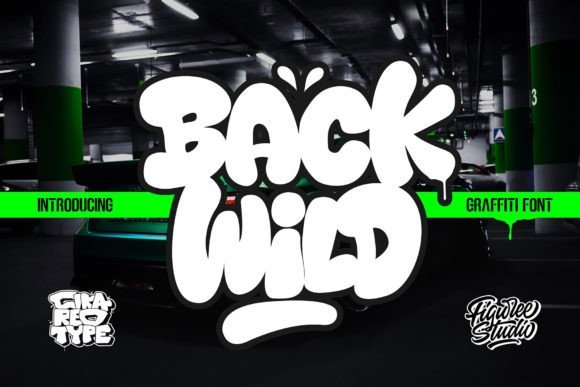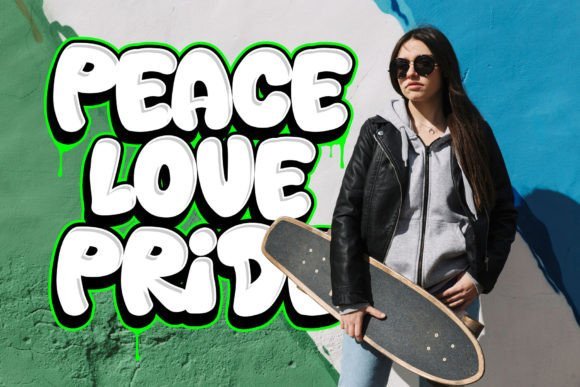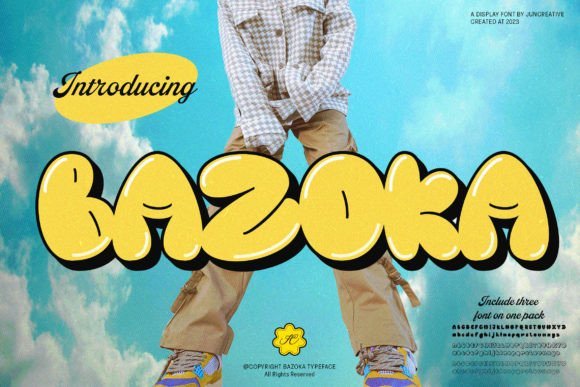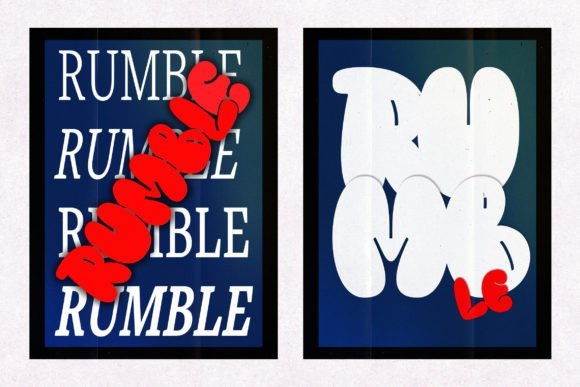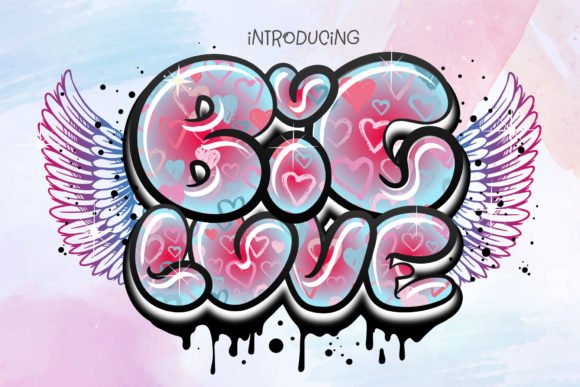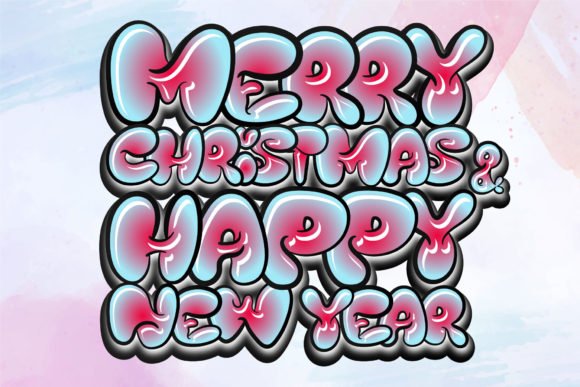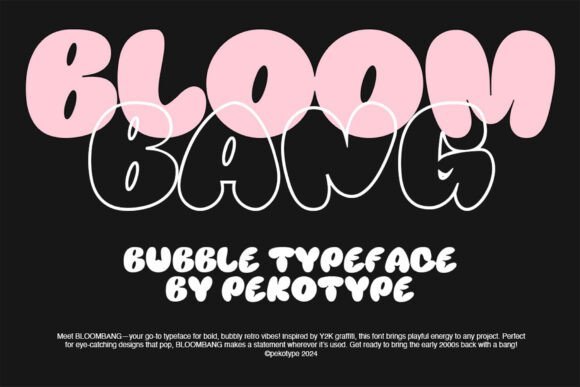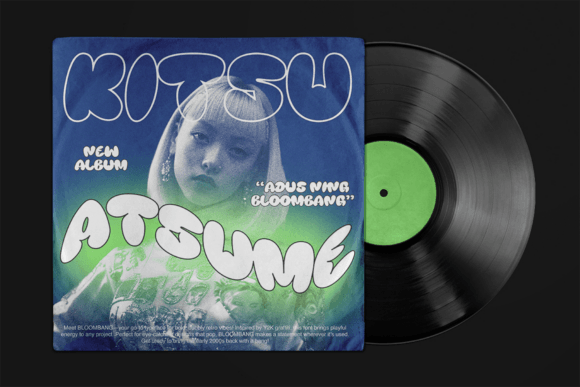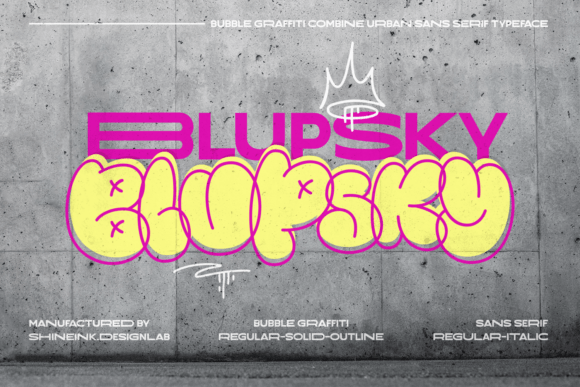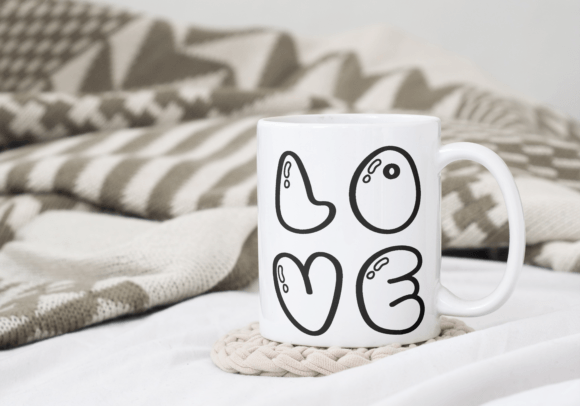
23 Stunning Bubble Graffiti Fonts to Master Urban Branding
Finding the right bubble graffiti font can be a game-changer for your brand. In this guide, we explore 23 professional typefaces that bring an authentic street vibe to everything from logo design to modern apparel. Let’s dive into the collection!
Voluminous Typefaces Rooted in Authentic Street Culture
Bubble graffiti typography turns raw street energy into memorable visual identities. This collection highlights 23 high-volume typefaces featuring exaggerated curves, overlapping silhouettes, and dynamic weight distribution. Graphic designers, streetwear labels, and creative directors gain a powerful toolkit of urban lettering styles built for eye-catching logos, festival posters, and high-impact commercial packaging.
1. Big Love: A Fresh Take on Classic Throw-Up Typography
Whenever I need a project to literally “pop” off the screen, Big Love is the first thing I grab. It’s a bubble graffiti font that uses a clean, bold outline to create that classic street-bombing look without feeling messy. I personally love how the hollow centers give you so much room to play with vibrant gradients or funky patterns, making it feel like a piece of fresh wall art that hasn’t even dried yet.
I’ve found that this bubble graffiti font is a total game-changer for streetwear branding, upbeat event posters, and digital stickers. One of its best perks is its readability; because it’s an outline style, it stays clear even on busy social media thumbnails and urban-themed merchandise. If you want to capture that high-energy, “throw-up” style while keeping your message sharp, Big Love is a fantastic choice to experiment with.
2. Your Name: Crafting Vibrant Visuals with Modern Bubble Styles
I’ve always felt that some fonts just have a personality that’s impossible to ignore, and Your Name is exactly that. It’s a bubble graffiti font that leans into those soft, exaggerated curves and unique proportions that make a word feel alive. When I use it, I love how the letters seem to bounce off each other, creating a rhythmic, “puffy” aesthetic that captures the fun, rebellious side of street culture without trying too hard.
This bubble graffiti font is my favorite pick for bold streetwear labels, playful YouTube thumbnails, and urban-style stickers. Its biggest advantage is that “cool, bubbly” shape which breathes life into creative social media headers and youth-oriented brand identity items. If you’re looking to give your digital canvas an instant dose of energy and a friendly, “throw-up” vibe, Your Name is a stellar choice that turns any simple text into a statement piece.
3. King Graffiti Font: Dominating the Scene with Heavyweight Curves
When I want a design to scream “street cred” without saying a word, I reach for King Graffiti. It’s a bubble graffiti font that perfectly captures that raw, edgy energy of a fresh tag on a city wall. I’m a huge fan of how it balances those chunky, rounded volumes with sharp, aggressive outlines—it gives the letters a heavy, muscular feel that looks like it was executed with a fat-cap spray nozzle in record time.
I’ve found that this bubble graffiti font is an absolute beast for bold event posters, underground music covers, and statement streetwear. The real advantage is its “king-sized” presence; it’s designed for attention-grabbing headlines and large-scale street art murals where you need your message to be loud and unmistakable. If you’re looking to bring some serious urban flair and a rebellious “throne” vibe to your artwork, this typeface is your best ally.
4. Back Wild: Blending Puffy Aesthetics with High-End Style
There is something incredibly compelling about fonts that look like they were painted with a thick, pressurized can, and Back Wild hits that mark perfectly. It’s a bubble graffiti font that embraces its “chubby” nature, offering wide, rounded letterforms that feel incredibly satisfying to look at. What really sets it apart for me is the addition of swash characters; they add a layer of decorative flair that transforms a simple word into a curated piece of street calligraphy.
I love using this bubble graffiti font for playful streetwear logos, bold headline art, and high-energy music festival posters. The major advantage here is the decorative swashes, which allow you to customize urban brand identities and stylish apparel designs with ease. If you’re looking for a typeface that combines a friendly, puffy aesthetic with a serious “wild style” attitude, Back Wild is the versatile tool you need in your kit.
5. Kiss Cloud Font: Soft Shapes for High Impact Graphics
I’ve always found that the best street art feels effortless, and Kiss Cloud captures that “floating” energy perfectly. It’s a bubble graffiti font that lives up to its name, offering soft, pillowy shapes that look like they were puffed onto a canvas. What really sold me on this one is how naturally it sits alongside other urban graphics; it has a friendly, approachable vibe that still maintains its cool, underground roots without feeling stiff.
This bubble graffiti font is my top pick for custom streetwear shirts, playful skate brand logos, and urban lifestyle stickers. One of its greatest advantages is the variety—it comes with regular, outline, and shadow versions, making it incredibly easy to layer for a 3D effect. Whether you’re designing vibrant social media assets or trendy apparel, Kiss Cloud gives you the flexibility to mix and match styles for a professional, harmonious street aesthetic.
6. Graffiti Bubble: Playful Curves for Modern Street Designs
When I first saw Graffiti Bubble, I was struck by how it balances that classic street “bombing” look with a surprisingly polished, modern cut. It’s a bubble graffiti font that swaps out gritty aggression for pure, rounded charm, making every character feel like a freshly inflated balloon. I love using it when I want a design to feel approachable and fun rather than intimidating, as it turns simple words into soft, distinctive art pieces.
I’ve found this bubble graffiti font works wonders for sublimation designs on t-shirts, custom mugs, and tote bags. One of its standout perks is its clarity, which makes it an excellent choice for comic book titles and playful animations where you need personality without sacrificing legibility. If you’re looking to splash some creativity onto youth-oriented branding or quirky merchandise, this typeface is a “delightful fusion” that’s incredibly easy to work with.
7. Boy Graffiti Font: Bold Urban Style for Edgy Designs
When I’m looking to channel that authentic, back-alley street vibe, Boy Graffiti is my immediate go-to. It’s a bubble graffiti font that captures the high-energy spirit of a quick throw-up, featuring bold lettering that looks like it was executed with a heavy hand and plenty of attitude. I love how it doesn’t shy away from being loud; it brings a specific kind of gritty confidence to the table that makes any digital canvas feel like a real-world city surface.
I’ve found this bubble graffiti font is a powerhouse for street art projects, edgy graphic designs, and urban-style posters. Its main advantage is its ability to make a bold statement instantly, making it perfect for skate brand logos and underground event flyers. If you want to give your next creative project a genuine “graffiti-inspired look” that feels both cool and rebellious, Boy Graffiti is the perfect tool to add that necessary layer of urban edginess.
8. Graffiti Street: Dynamic Balloon Styles for Creative Projects
I’ve always loved how street art can turn a plain brick wall into a masterpiece, and Graffiti Street brings that exact energy to your screen. As a bubble graffiti font, it stands out with its unique “balloon” texture that feels incredibly tactile and alive. When I use it, I’m always impressed by how the letters seem to vibrate with movement, offering an expressive, edgy allure that makes any word feel like a fresh piece of urban self-expression.
I find this bubble graffiti font is a fantastic choice for vibrant posters, urban-themed DIY crafts, and modern streetwear branding. Its biggest advantage is the “authentically street-inspired” feel it adds to creative social media assets and digital art, turning ordinary layouts into visually engaging celebrations of urban culture. If you’re looking to inject a dynamic, textured flair into your next big project, this typeface is a uniquely crafted winner.
9. Graffiti Bubble Font: Bold Rounded Styles for Urban Merch
bubble graffiti font
I’ve found that most street-style projects need a balance between raw energy and clean execution, and Graffiti Bubble hits that sweet spot perfectly. It’s a bubble graffiti font that feels like a classic “throw-up” but with a polished, professional edge. When I’m building a layout, I love how the chunky, inflated letters create a natural sense of depth, making your text look like it was freshly bombed onto a surface with a steady, expert hand.
This bubble graffiti font is an absolute powerhouse for athletic apparel, skateboard deck graphics, and bold logo design. Its major advantage is its sheer versatility; it transitions seamlessly from sportswear jerseys to high-impact advertising, ensuring your message stays legible while maintaining that underground vibe. If you’re ready to take your urban concepts to the next level, this stunning typeface is the bold boost your creative toolkit needs.
10. Graphy: Bold Bubble Letters With Contemporary Edge
I’m obsessed with how Graphy manages to bridge the gap between old-school street grit and that polished Y2K aesthetic we’re seeing everywhere right now. It’s a bubble graffiti font that feels like a time capsule from the early 2000s, but with a modern, clean layout that makes it super easy to place in a professional design. I love the “Filled” version for its chunky weight, but the “Anti Counter” style gives it a unique, solid look that really breaks the mold of traditional lettering.
This bubble graffiti font is a fantastic choice for trendsetting logos, social media graphics, and streetwear branding. Its biggest advantage is the variety; having Filled, Anti Counter, and Outline styles in one kit means you can layer them to create custom 3D effects on music covers or modern apparel. If you want to give your project a contemporary edge that feels both nostalgic and fresh, Graphy is the tool that will make your work pop.
11. Milyear Solid: The Perfect Balloon-Graffiti Hybrid
There is something truly refreshing about scripts that don’t take themselves too seriously, and Milyear Solid hits that playful sweet spot perfectly. It’s a bubble graffiti font that masterfully blends the raw energy of street bombing with the soft, bouncy volumes of balloon art. What really caught my eye is the built-in ligatures; they make the letters flow together so naturally, giving your text that “custom-painted” look without the extra manual tweaking.
I’ve found this bubble graffiti font is an absolute gem for youthful product packaging, vibrant website headers, and artistic social media content. One of its best perks is the dual-style nature—you can switch between the solid version for bold impact or the outline style for a modern touch on posters and murals. If you’re looking to add a layer of urban flair to street-style banners or creative logos, Milyear Solid offers a seamless and visually satisfying experience every time.
12. Thick or Melted Font: The Fluid Energy of Street Art
I’m really digging how “Thick or Melted” lives up to its name—it has this incredible, heavy flow that makes the letters look like they’re dripping right off the canvas. As a bubble graffiti font, it leans into that juicy, over-inflated aesthetic that defines the best street “throw-ups.” When I use it, I love how the rounded edges feel both soft and powerful, giving any word an instant sense of weight and urban character.
This versatile bubble graffiti font is my go-to for bold sportswear jerseys, streetwear apparel, and high-impact logo designs. Its biggest advantage is how well it works in aggressive advertisements and clothing line branding, where you need a style that’s both legible and unapologetically cool. If you want a typeface that adds a “melted” yet structured vibe to your creative street-style projects, this font is a total standout choice.
13. Blupsky: Where Street Art Meets Clean Design
The best urban fonts are undeniably the ones that don’t sacrifice readability for style, and Blupsky strikes that balance beautifully. It’s a bubble graffiti font that feels like it was born on a skate deck, blending the bouncy energy of street art with the structure of a classic sans-serif. When I use it, I’m always impressed by how “effortlessly cool” it looks; it has that puffy, rounded charm but stays sharp enough to work in professional layouts.
This bubble graffiti font family is an absolute winner for skateboarding brand identities, modern sportswear, and eye-catching event posters. Its main advantage is its high legibility, which makes it perfect for dynamic social media content and urban-style apparel where you want that graffiti soul without the typical clutter. If you’re looking for a versatile typeface that feels both playful and polished, Blupsky is a fantastic way to elevate your next creative project.
14. Bazoka: The Energetic Punch of Hand-Drawn Ink
I’ve found that some fonts just scream “personality” the moment you type the first letter, and Bazoka is definitely one of them. It’s a bubble graffiti font that perfectly mimics that raw, hand-drawn look we all love in authentic street art. I’m a huge fan of its chunky, rounded shapes; they give off a playful yet bold vibe that feels like it was sketched in a notebook before hitting a city wall.
This bubble graffiti font is my go-to for informal event flyers, urban-themed posters, and high-energy social media banners. The biggest advantage of Bazoka is its ability to add an instant human touch to street art projects and digital illustrations, making everything feel more organic and less “stock.” If you need to inject some fun, bouncy energy into your creative branding or merch designs, this typeface is a solid choice to get noticed.
15. Bulbis Font: A Y2K Twist on Street Classics
I’m really feeling how Bulbis manages to tap into that nostalgic Y2K energy while staying firmly rooted in the streets. It’s a bubble graffiti font that feels like a fresh take on the classic “puffy” look, blending sleek, modern layouts with the bouncy spirit of a high-pressure spray can. When I work with it, I love how its eye-catching proportions instantly draw the eye, making any layout feel like a curated piece of trending street culture.
This bubble graffiti font is a fantastic choice for vibrant streetwear branding, modern logo design, and high-energy social media graphics. Its major advantage is its “trendsetting” versatility; it bridges the gap between retro Y2K identities and contemporary urban apparel, giving your work a fresh, edgy finish. If you’re looking to stand out in a crowded feed, Bulbis offers that perfect mix of dynamic movement and clean, professional design.
16. Graff Pumphiz: Give Your Brand Real Underground Attitude
When I want my work to carry a heavy, unmistakable attitude, Graff Pumphiz is exactly what I reach for. It’s a bubble graffiti font that doesn’t just sit on the page—it commands it with thick, pressurized lines and distinctive rounded edges. I’m a big fan of how it manages to look both massive and fluid at the same time, capturing that raw “throw-up” style you’d see on a fresh city mural before the sun even comes up.
I’ve found that this bubble graffiti font is the ultimate choice for music event posters, edgy streetwear collections, and high-impact urban branding. Its biggest advantage is the “rebellious edge” it brings to skate shop logos and digital graffiti art, making it easy to add a sense of street-smart confidence to any layout. If you’re aiming to make a loud statement with your graphic design projects, Graff Pumphiz delivers that authentic underground energy effortlessly.
17. Bloombang Font: The Retro-Futurist Street Pop
I honestly get such a nostalgia kick whenever I open Bloombang. It’s a bubble graffiti font that perfectly captures that “too cool to care” Y2K energy, mixing oversized, puffy curves with a bit of a futuristic glow. What I love most is how it feels like a vibrant blast from the past; the letters don’t just sit there—they practically burst off the screen with a playful, high-octane personality that makes any word feel like a centerpiece.
I’ve found this bubble graffiti font is a total winner for eye-popping posters, edgy streetwear, and dynamic brand logos. Its main advantage is that it bridges the gap between nostalgic early-2000s aesthetics and modern street art, making it incredibly easy to create standout social media headers and youth-focused merchandise. If you want your designs to explode with color and a fresh, “retro-futurist” twist, Bloombang is the go-to choice for making a loud, memorable statement.
18. Nasty Habit: The Flavor of Street Versatility
I’m honestly obsessed with how Nasty Habit can flip the script from “sweet” to “gritty” in a heartbeat. It’s a bubble graffiti font that feels like a cross between a classic street throw-up and a burst of juicy bubblegum. What makes it a personal favorite is the massive variety; with 8 styles ranging from clean, bouncy curves to “melted” versions that look like dripping ink, it gives me total creative freedom to decide exactly how “nice” or “naughty” I want the design to be.
I’ve found this bubble graffiti font is a powerhouse for comic book titles, playful food packaging, and even horror-themed streetwear. The biggest perk is the included set of “drippy shapes” and the authentic hand-drawn outlined version, which are perfect for youth-oriented merchandise and high-impact posters. Whether you’re aiming for a friendly children’s book vibe or a raw street aesthetic, this family provides the flexible tools needed to make your typography feel alive and textured.
19. Bubble Horns: Street Attitude with a Bubbly Twist
Whenever I need a design to look tough but still keep that classic “puffy” street soul, Bubble Horns is my top pick. It’s a bubble graffiti font that brings a serious heavyweight presence to the screen, featuring thick, rounded edges that feel like they were pumped full of air and spray paint. I love how it balances a friendly shape with a sharp, urban edge, making it feel like a high-energy “throw-up” tag you’d spot in a busy subway station.
I’ve found that this bubble graffiti font is a total beast for bold music posters, streetwear collections, and custom apparel. Its main advantage is its “strong and powerful” silhouette, which makes it perfect for skate brand logos and edgy graphic headlines where you need a touch of rebellion. If you’re aiming to inject some raw attitude into your urban-themed projects, Bubble Horns is the ultimate choice to make your message impossible to miss.
20. Boy Graffiti 2: Bold Lettering for Edgy Urban Designs
When I’m scouring the web for a bubble graffiti font that actually feels authentic, I look for that specific “throw-up” energy that defines city walls. This selection is a personal favorite because it perfectly captures the raw, hand-painted soul of street art without feeling overly digital or stiff. It brings that unmistakable urban edge to a canvas, making it feel like the letters are still fresh from a spray can, dripping with style and rebellion.
I’ve found this bubble graffiti font is a powerhouse for street art projects, edgy graphic headlines, and urban-style posters. The main advantage is its sheer versatility; it effortlessly adds a “graffiti-inspired look” to skate brand logos and underground event flyers. If you want your next creative project to make a bold statement, this collection offers the perfect blend of thick, puffy shapes and sharp, gritty attitude that every urban-themed design needs to truly stand out.
21. Bubble Block Font: The Mastery of 3D Depth
I’ve always loved the look of a heavy “piece” on a concrete wall, and Bubble Block brings that exact three-dimensional weight to your screen. It’s a bubble graffiti font that actually does the hard work for you by providing separate layers for shadows and highlights. When I use it, I really appreciate how the rounded, inflated letters look like they’re literally jumping off the page, giving my text a massive, tangible presence that flat fonts just can’t match.
This bubble graffiti font is my top recommendation for prominent 3D posters, urban event flyers, and high-impact digital art. The biggest advantage is the layered system of solid, shadow, and inner shadow styles, which allows you to create professional depth without needing complex software tricks. Whether you’re working on dynamic streetwear logos or bold website headers, Bubble Block ensures your message grabs attention with its visually impactful, multi-dimensional street style.
22. Doodle Line: The Playful Pulse of Street Art
There is something truly captivating about how street art can feel both rebellious and incredibly fun, and Doodle Line hits that sweet spot perfectly. It’s a bubble graffiti font that strips away the heavy fill of traditional throw-ups, leaving behind these energetic, hand-sketched outlines that feel alive on the screen. When I use it, I appreciate how the “doodle” aesthetic makes a design feel personal and approachable rather than just another stiff, digital creation.
This unique bubble graffiti font is an absolute winner for vibrant gaming interfaces, playful cartoon branding, and creative logo designs. Its biggest advantage is its modern, lightweight feel, which makes it perfect for social media graphics and youthful streetwear merchandise where you want to stand out without overwhelming the viewer. If you’re looking to inject a “cool and modern” vibe into your next project, Doodle Line is your go-to for an effortless, artistic statement.
23. Eazyhack Font: The Modern Balloon Aesthetic
When I first laid eyes on Eazyhack, I was instantly hooked by its sleek, inflated curves. It’s a bubble graffiti font that feels incredibly fresh, moving away from gritty textures toward a clean, high-gloss balloon look. I love how it captures that “modern street” energy—it’s bouncy and fun, yet it maintains a sharp professional edge that keeps your layouts looking sophisticated rather than messy.
I’ve found this bubble graffiti font works like a charm for music album covers, gaming industry branding, and bold editorial designs. Its main advantage is its extreme legibility across digital platforms, making it a top-tier choice for website headers, sports logos, and modern advertising posters. If you want to give your project a “pop” that feels both trendy and timeless, Eazyhack is the versatile tool you need to make your titles truly bounce.
Final Thoughts
I hope this selection of 23 fonts has helped you find the perfect solution for your next project. Remember, there are no rules in street style — don’t be afraid to experiment with letter spacing and shadows. These fonts are just a canvas for your imagination. Use them as a basis for your illustrations, add glare and smudges to turn ordinary text into a true masterpiece of modern graffiti.